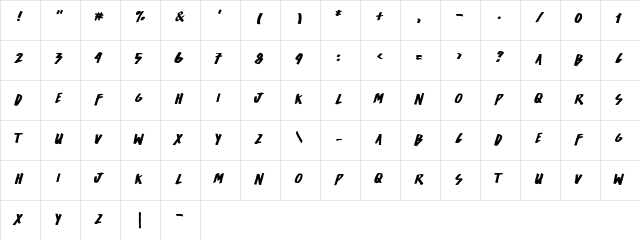
Easycore Regular
| Designer | The Branded Quotes |
Design Context for Easycore Typeface
Easycore is a composed and adaptable typeface that performs quietly and consistently across a wide range of design contexts.